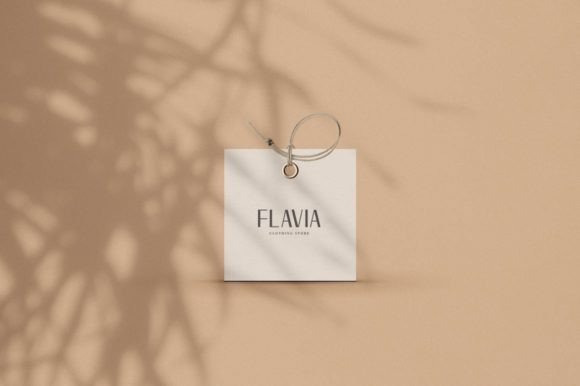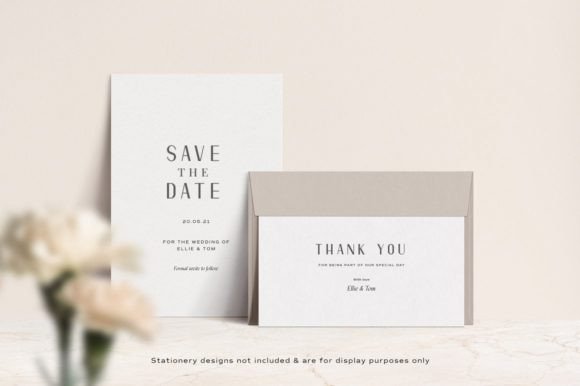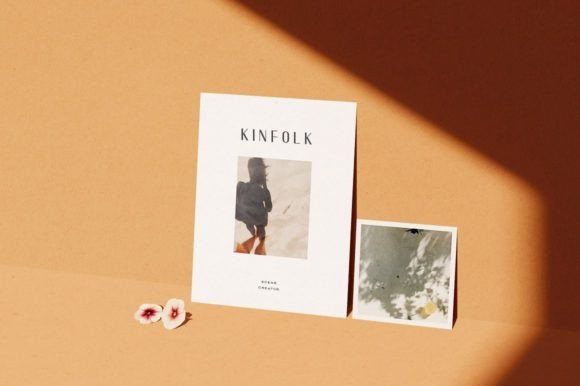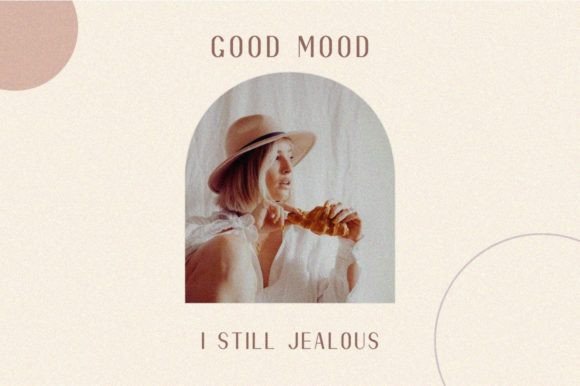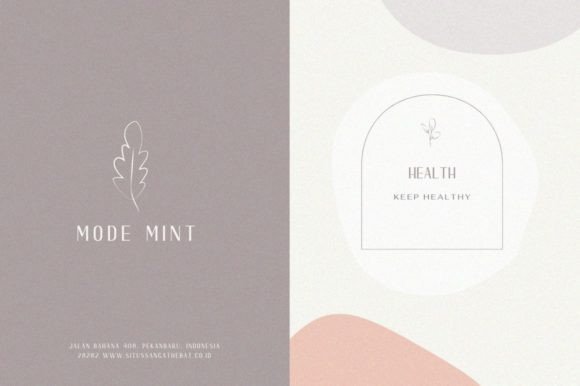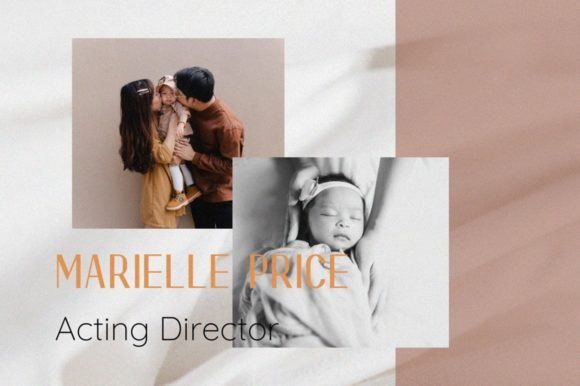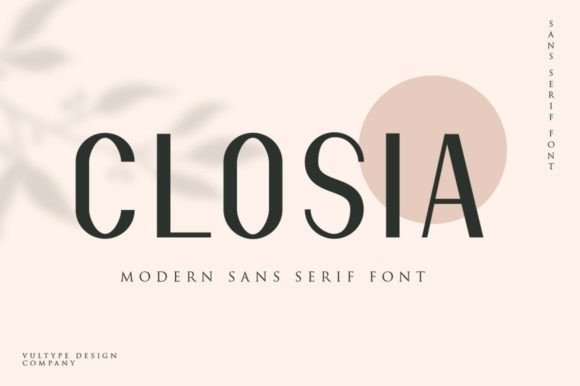
Introducing Closia Font: The Ultimate Sans Serif for Romantic Designs
Are you a designer or crafter looking for a font that exudes romance and charm? Look no further than Closia Font, a clean and minimal sans serif font that’s perfect for adding a touch of elegance to your next design project. In this article, we’ll dive into the features and benefits of Closia Font, and explore how it can elevate your designs across various mediums.
What is Closia Font?
Closia Font is a modern sans serif font that’s designed to be both clean and minimal. Its sleek lines and simple curves make it an ideal choice for designers who want to add a touch of sophistication to their work. Whether you’re working on a magazine, movie title, book cover, or wedding invitation, Closia Font is the perfect choice.
Key Features of Closia Font
• Clean and Minimal Design: Closia Font features a clean and minimal design that’s perfect for creating elegant and sophisticated designs.
• Sans Serif: As a sans serif font, Closia Font is ideal for digital and print designs, offering a modern and streamlined look.
• Romantic and Charming: Despite its simplicity, Closia Font exudes romance and charm, making it perfect for designs that require a touch of whimsy.
• Versatile: Closia Font can be used across various mediums, from magazines and movies to wedding invitations and T-shirt designs.
Use Cases for Closia Font
Closia Font is an incredibly versatile font that can be used across a wide range of design projects. Here are some examples of how you can use Closia Font:
• Magazines: Add a touch of elegance to your magazine designs with Closia Font, perfect for headings, titles, and captions.
• Movies and Film: Use Closia Font to create captivating movie titles, taglines, and posters that will grab audiences’ attention.
• Book Titles: Give your book covers a professional and polished look with Closia Font, ideal for fiction, non-fiction, and children’s books.
• Photography: Add a touch of sophistication to your photography projects with Closia Font, perfect for captions, titles, and watermarks.
• Wedding Invitations: Make your wedding invitations truly special with Closia Font, adding a touch of romance and whimsy to your designs.
• Restaurant Menus: Elevate your restaurant menus with Closia Font, perfect for menu titles, descriptions, and pricing.
• T-Shirt Designs: Create eye-catching T-shirt designs with Closia Font, ideal for quotes, phrases, and slogans.
• Flyers and Banner Ads: Use Closia Font to create attention-grabbing flyers and banner ads that will stand out in a crowded market.
• Web and Printing: Closia Font is optimized for both web and print use, making it perfect for digital and offline designs.
Industries That Can Benefit from Closia Font
Closia Font is a versatile font that can be used across various industries, including:
• Food and Beverage: Add a touch of elegance to your food and beverage branding with Closia Font, perfect for restaurant menus, packaging, and advertising.
• Fashion: Elevate your fashion designs with Closia Font, ideal for branding, advertising, and editorial content.
• Cosmetic Products: Use Closia Font to create captivating packaging and advertising for your cosmetic products, adding a touch of sophistication and glamour.
Why Choose Closia Font?
With so many fonts available, why choose Closia Font? Here are just a few reasons why Closia Font stands out:
• Unique and Elegant Design: Closia Font features a unique and elegant design that’s sure to elevate your designs.
• Highly Versatile: Closia Font can be used across various mediums and industries, making it a valuable addition to your font library.
• Easy to Read: Closia Font is highly legible, making it perfect for body text, headings, and titles.
In conclusion, Closia Font is a clean and minimal sans serif font that’s perfect for adding romance and charm to your design projects. With its versatility, elegance, and high legibility, Closia Font is an excellent choice for designers and crafters across various industries. Whether you’re working on a magazine, movie title, wedding invitation, or T-shirt design, Closia Font is sure to elevate your designs and leave a lasting impression.